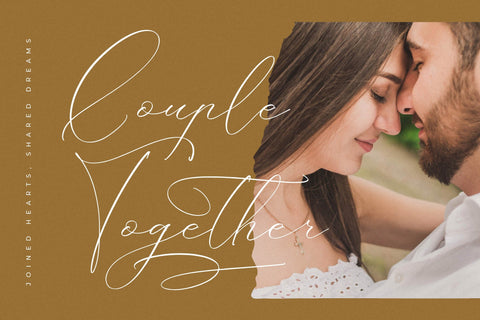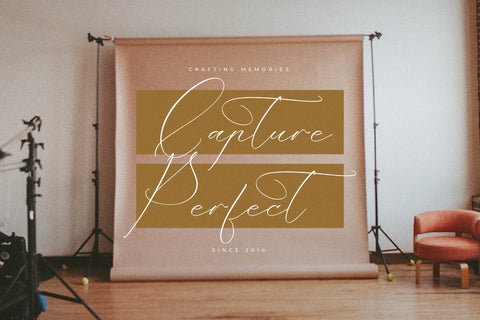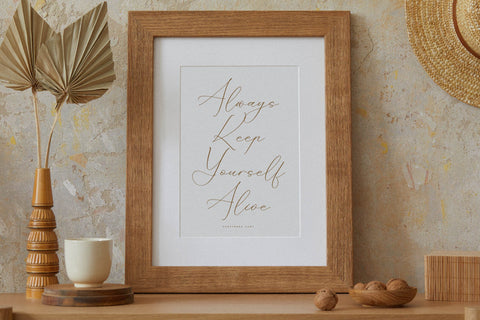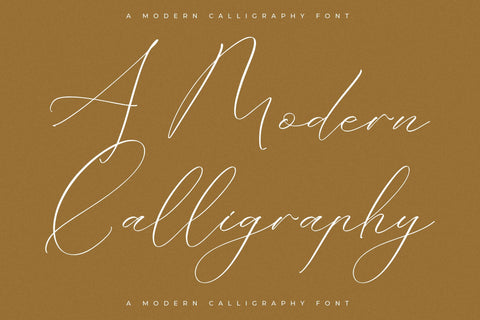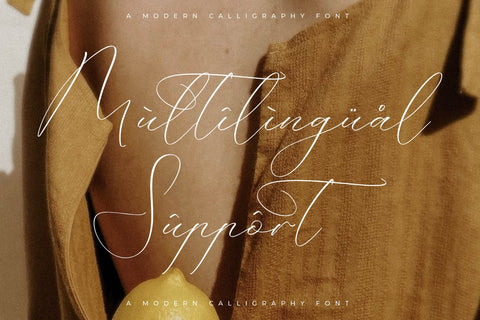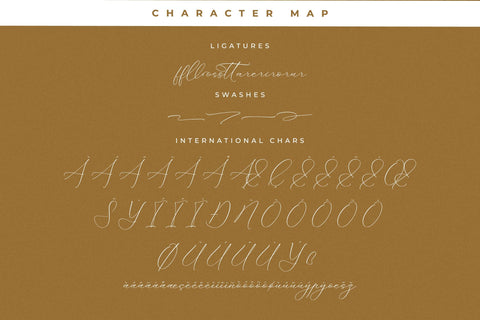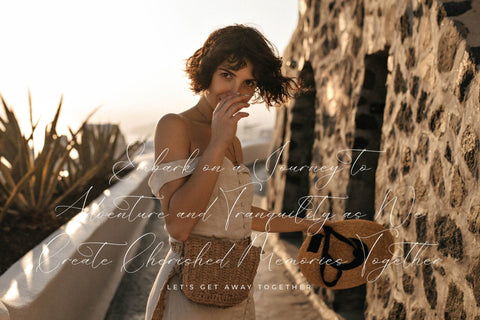
Portterda - Modern Calligraphy Font
Proudly present Portterda - Modern Calligraphy Font , created by Storytype,
A luxury script that has own unique style & modern look.